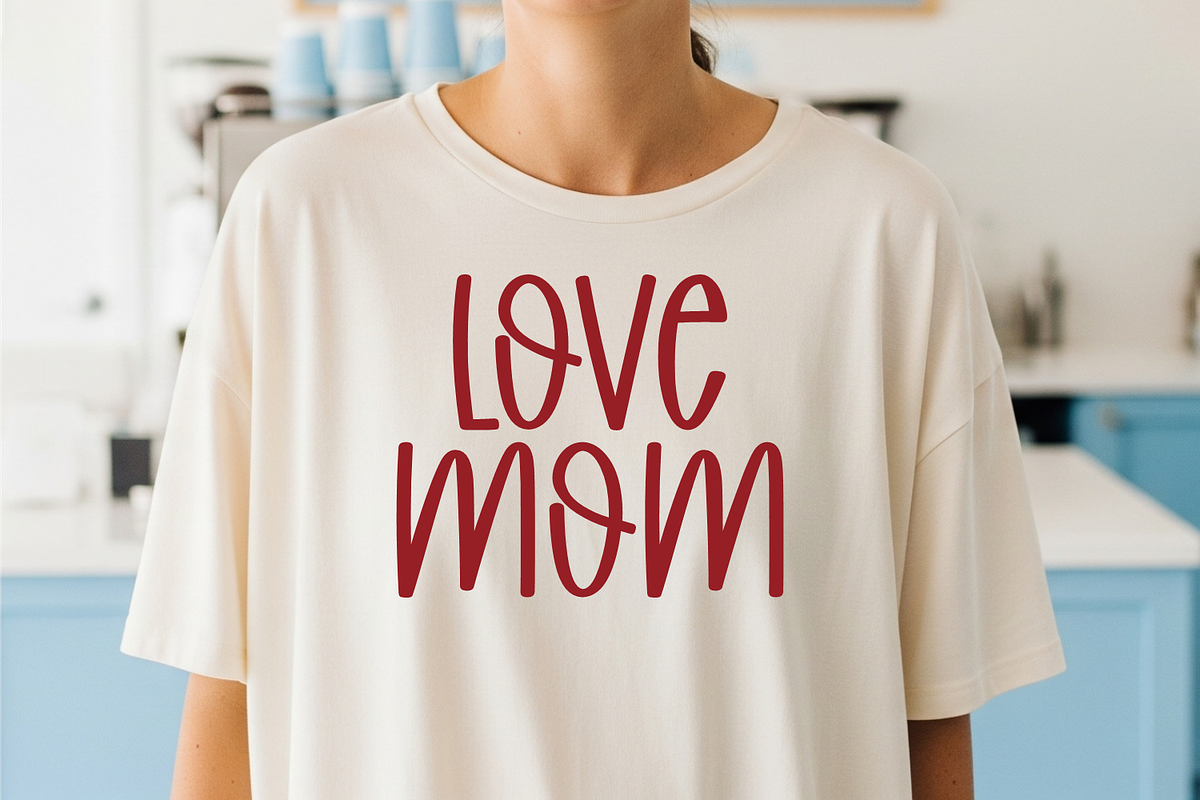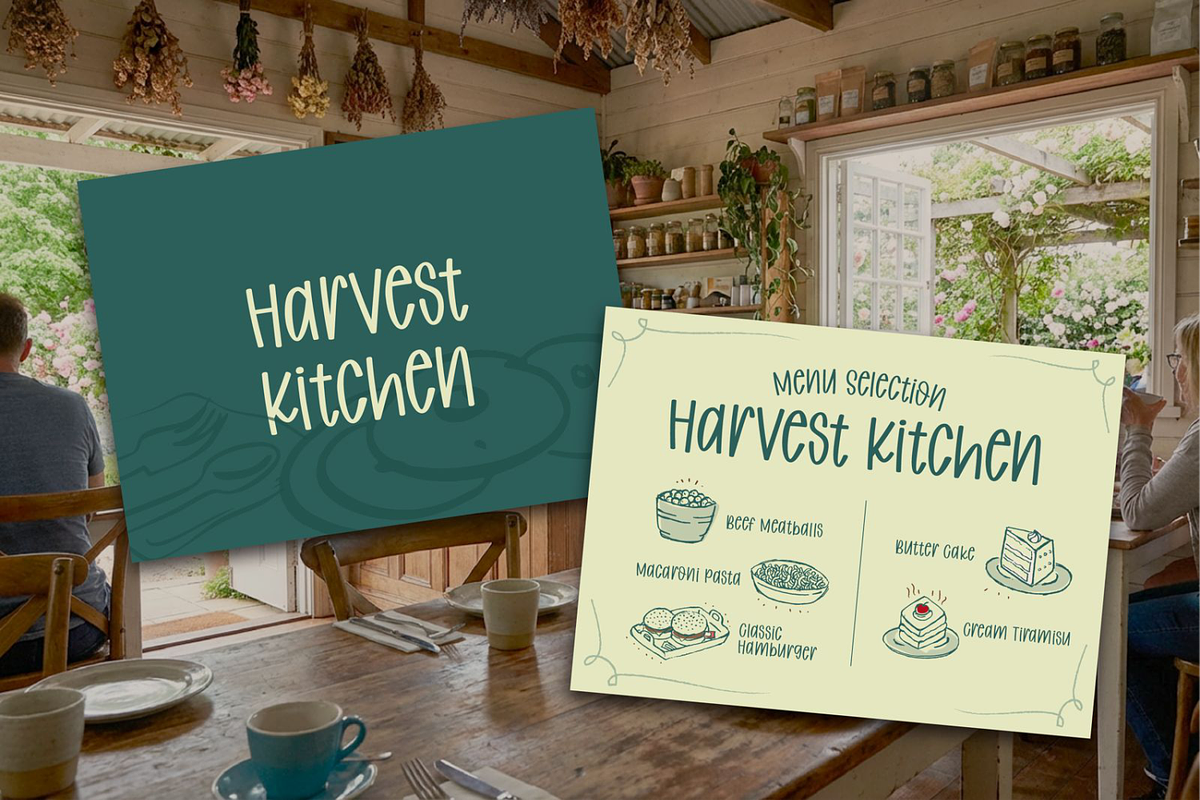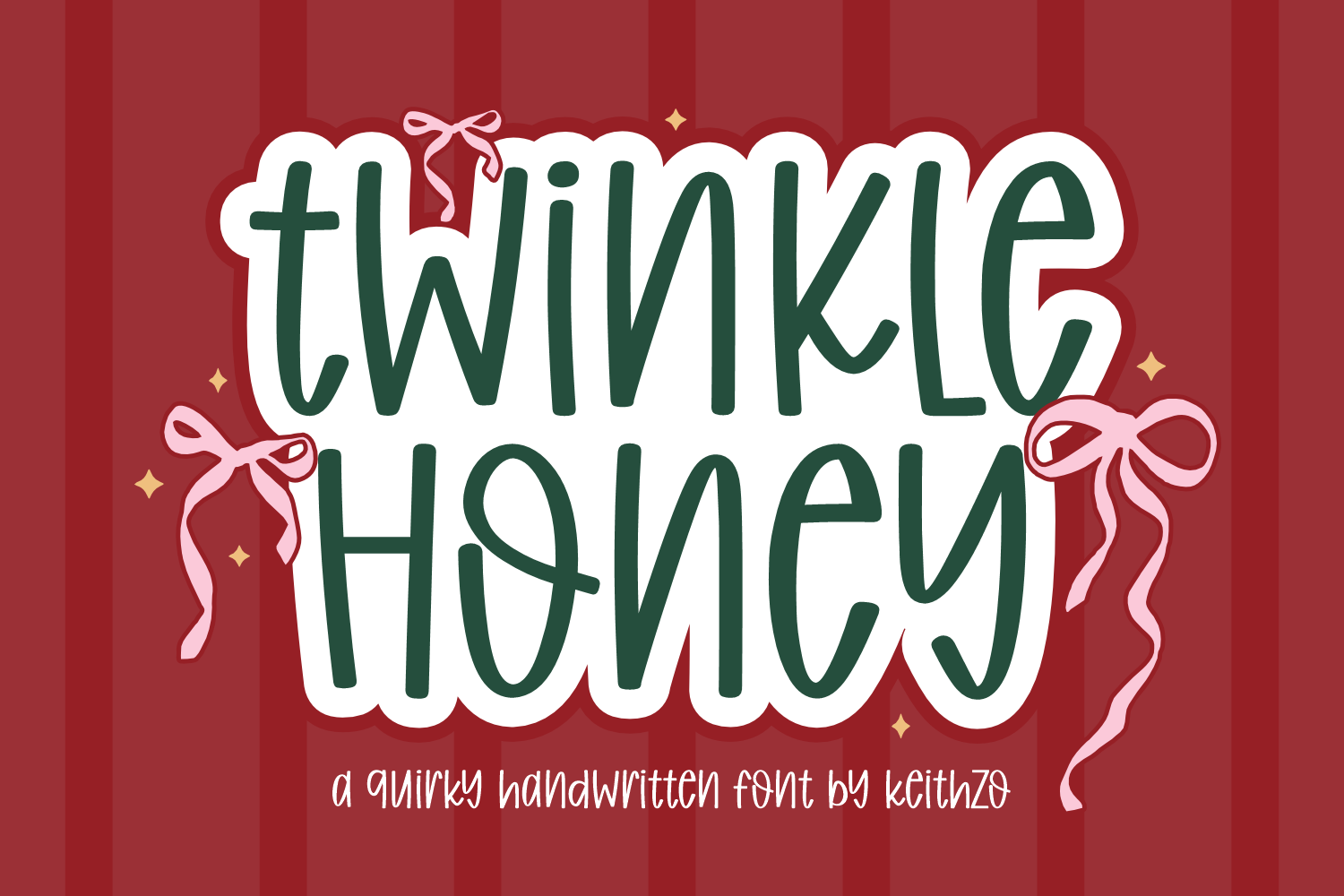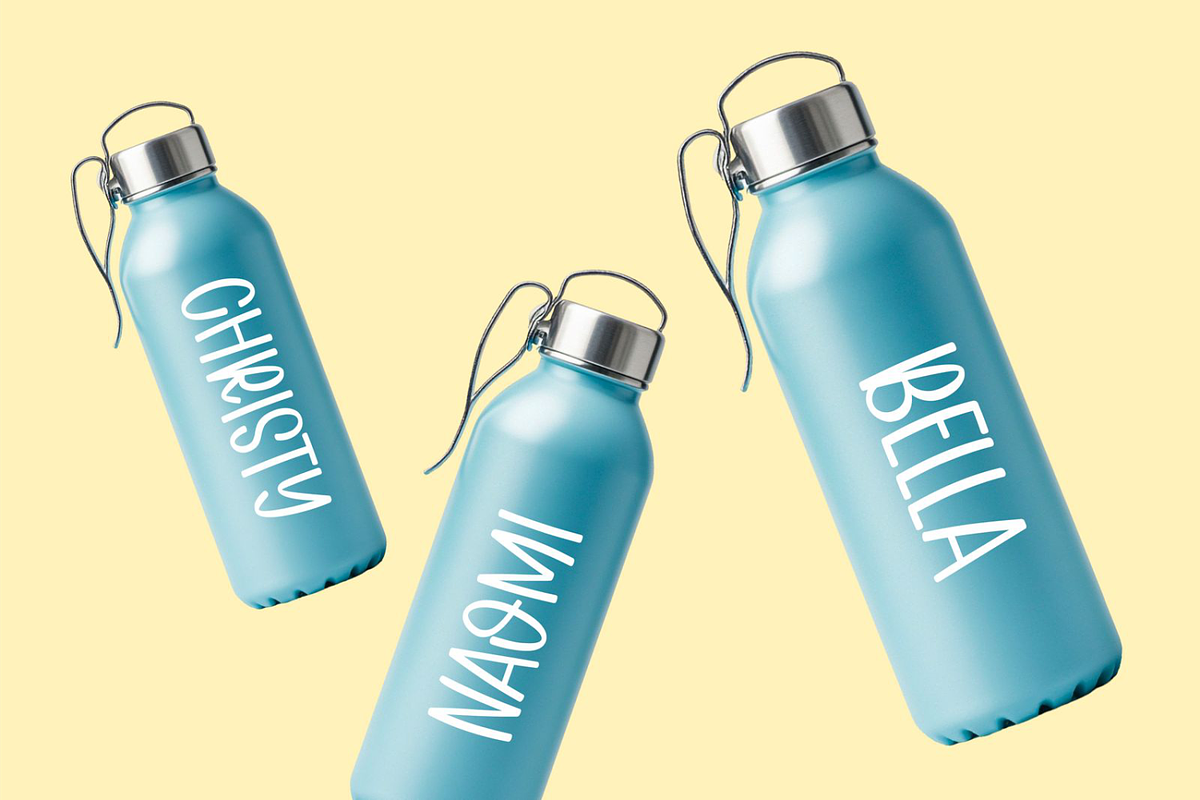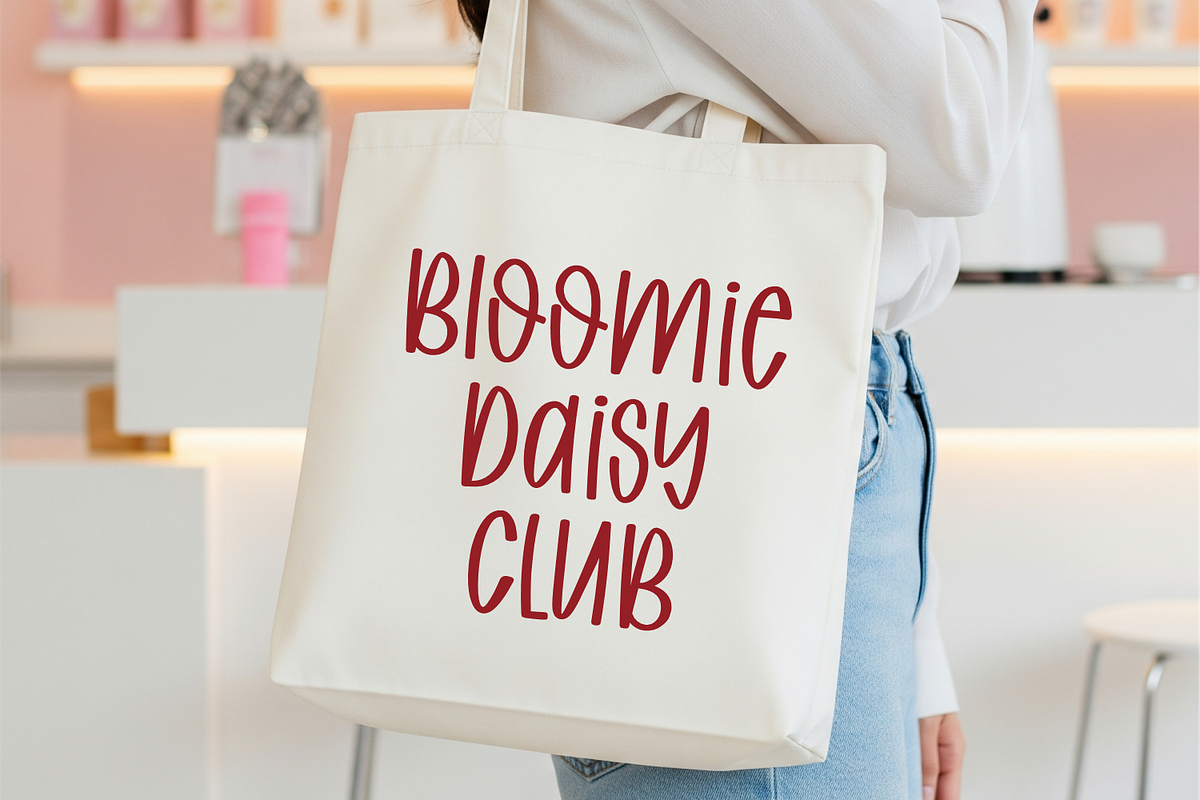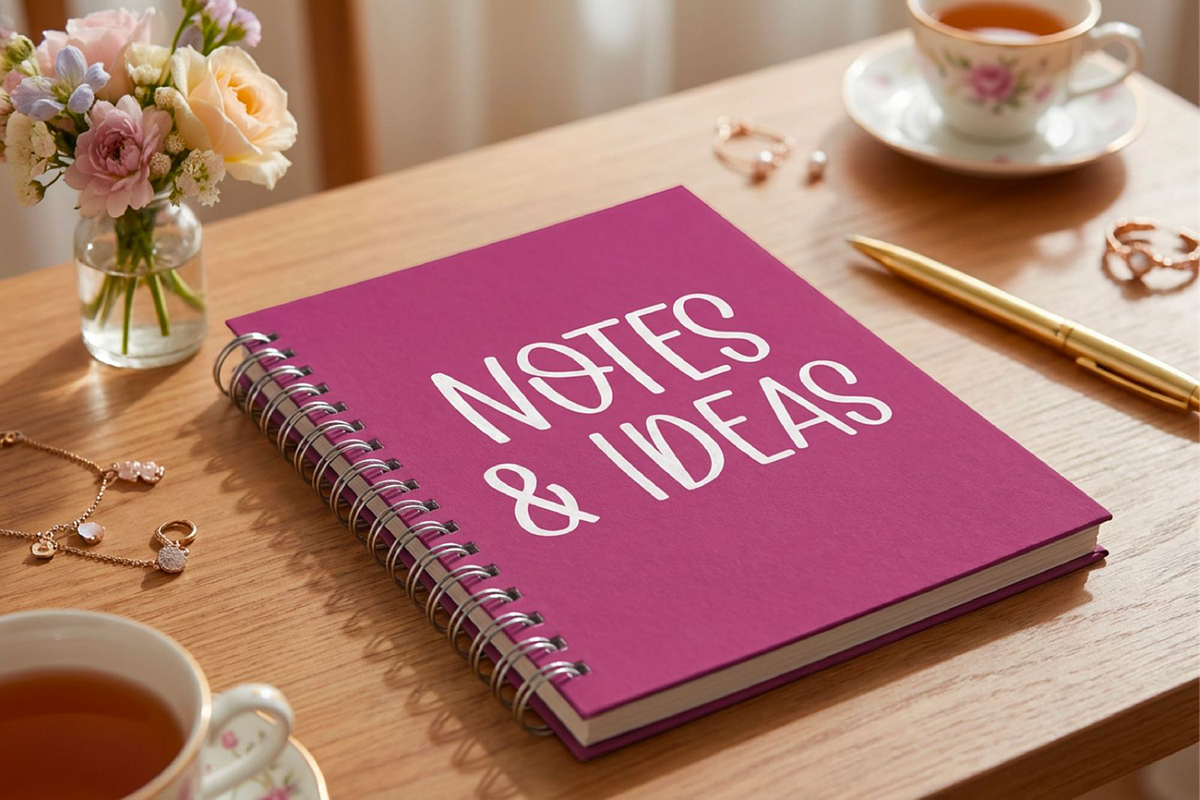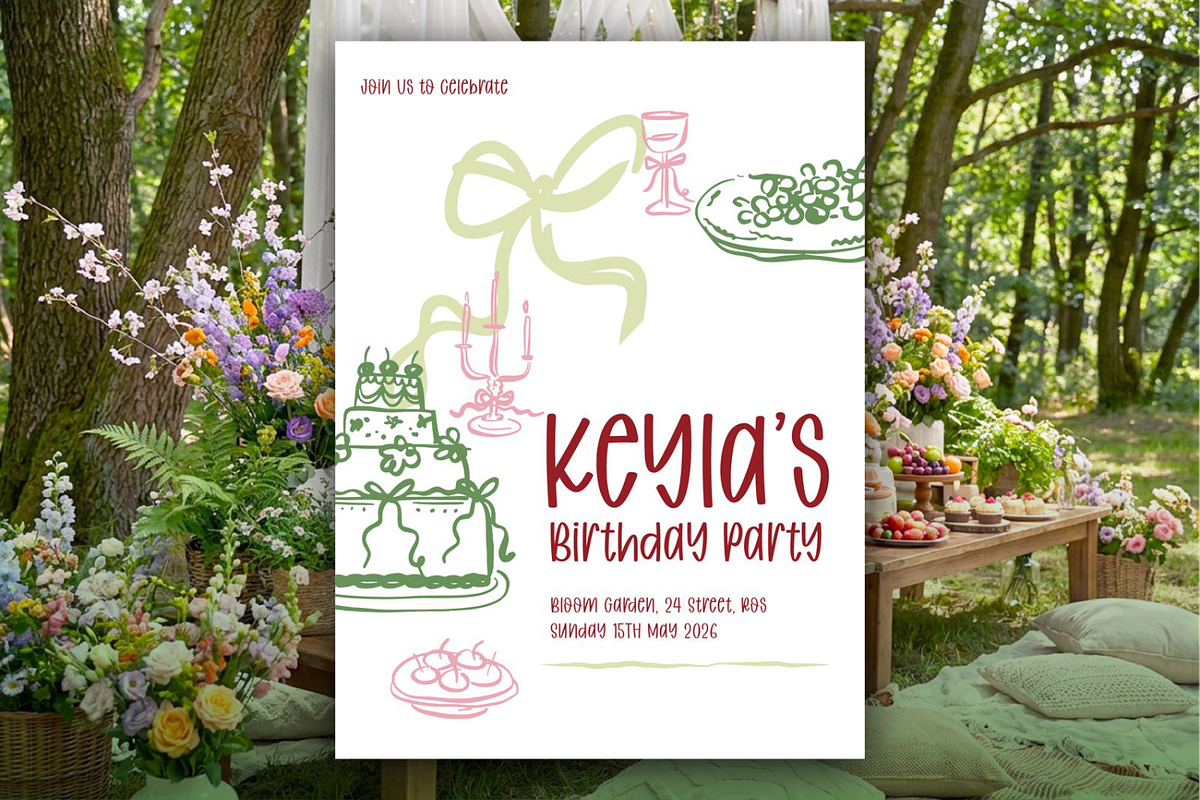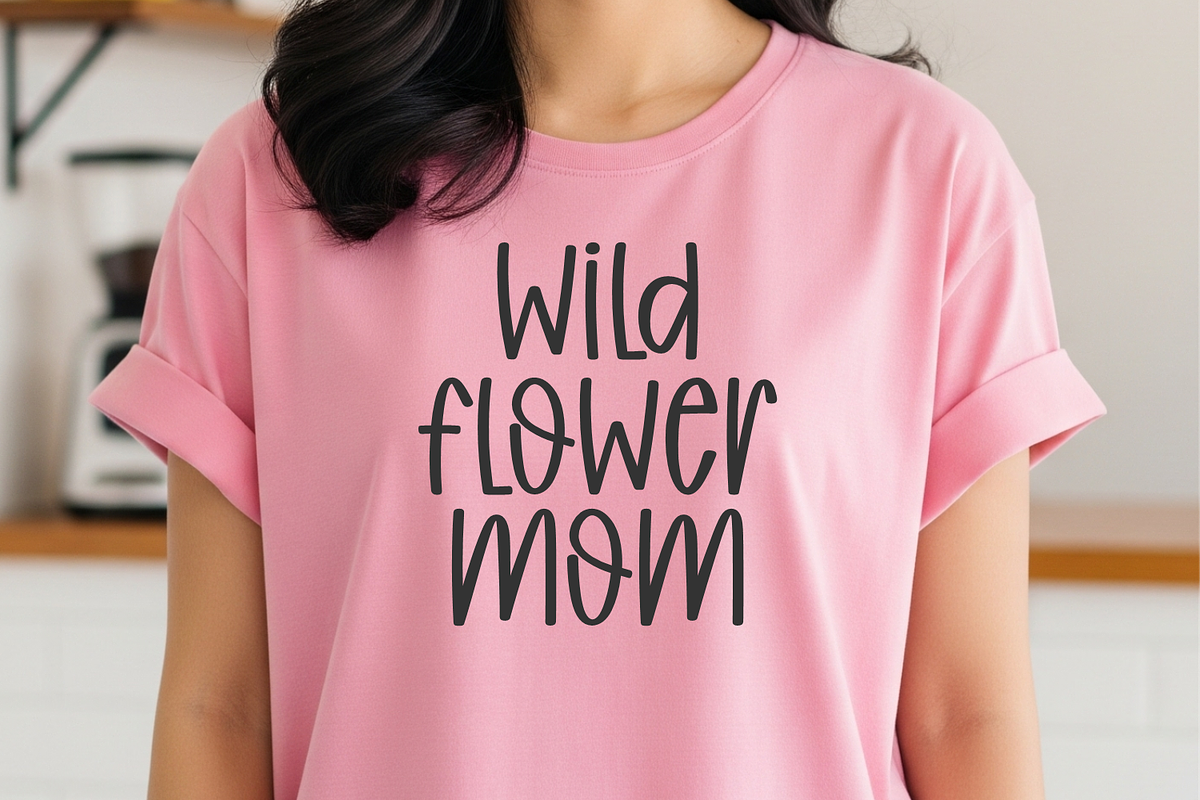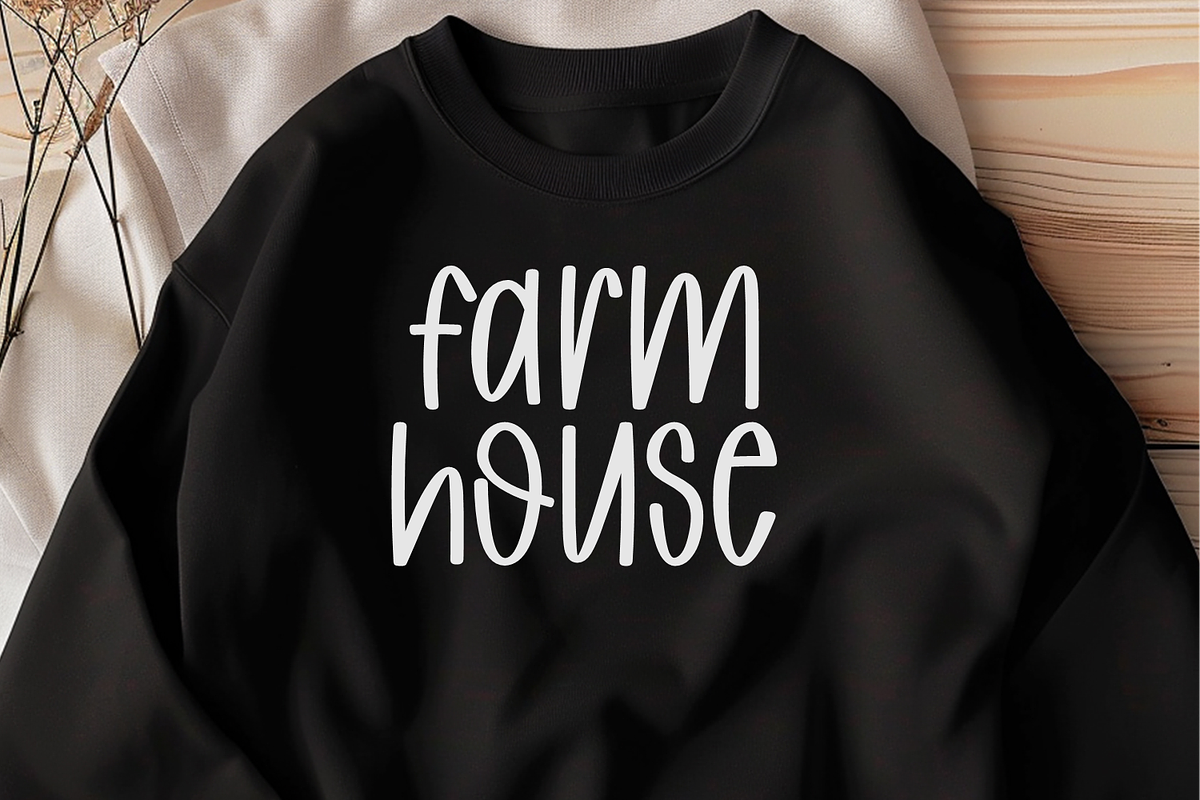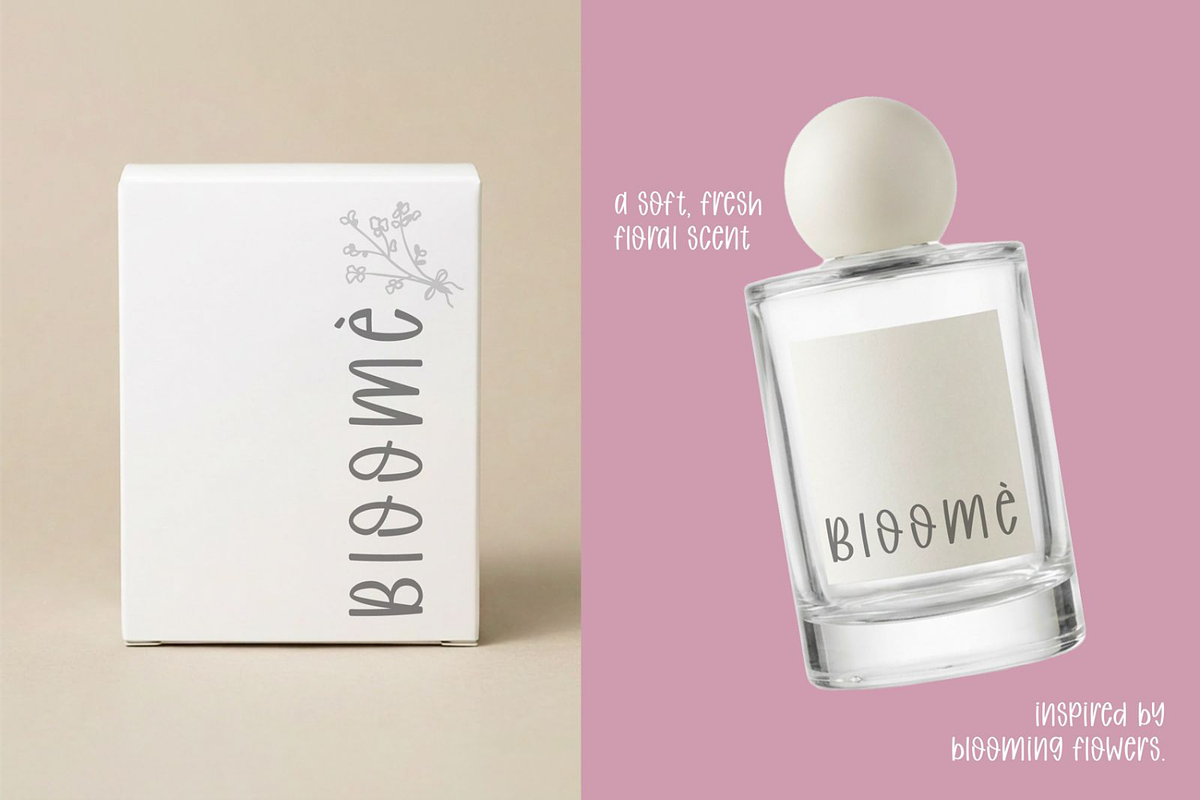
Twinkle Honey - Handwriting Font
Experience the charm and whimsy of Twinkle Honey – an enchanting, beautiful handwritten font. Infuse your designs with a sense of fun and imagination, inspired by the delightful rhythm and bounce of this unique typeface.
Twinkle Honey emanates an intimate, inviting vibe, making it an ideal selection for projects that call for a warm, personal touch. Embodying the charm of modern handwriting, it effortlessly adapts to a wide range of uses – from kid-friendly branding to artisanal product labels.
The organic flow and enchanting character shapes of Twinkle Honey guarantee your designs will ooze an irresistible, handcrafted allure. Illuminate your work with the spellbinding touch of Twinkle Honey – the handwritten font that truly sparkles.